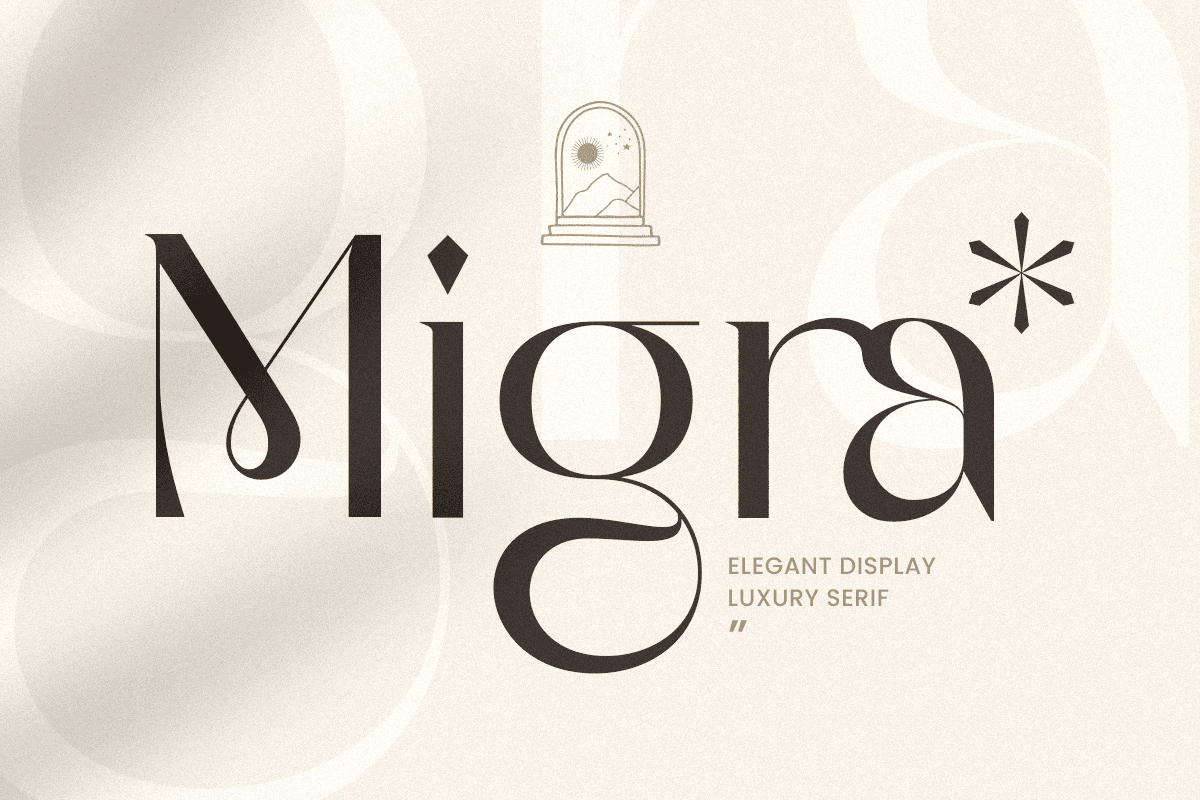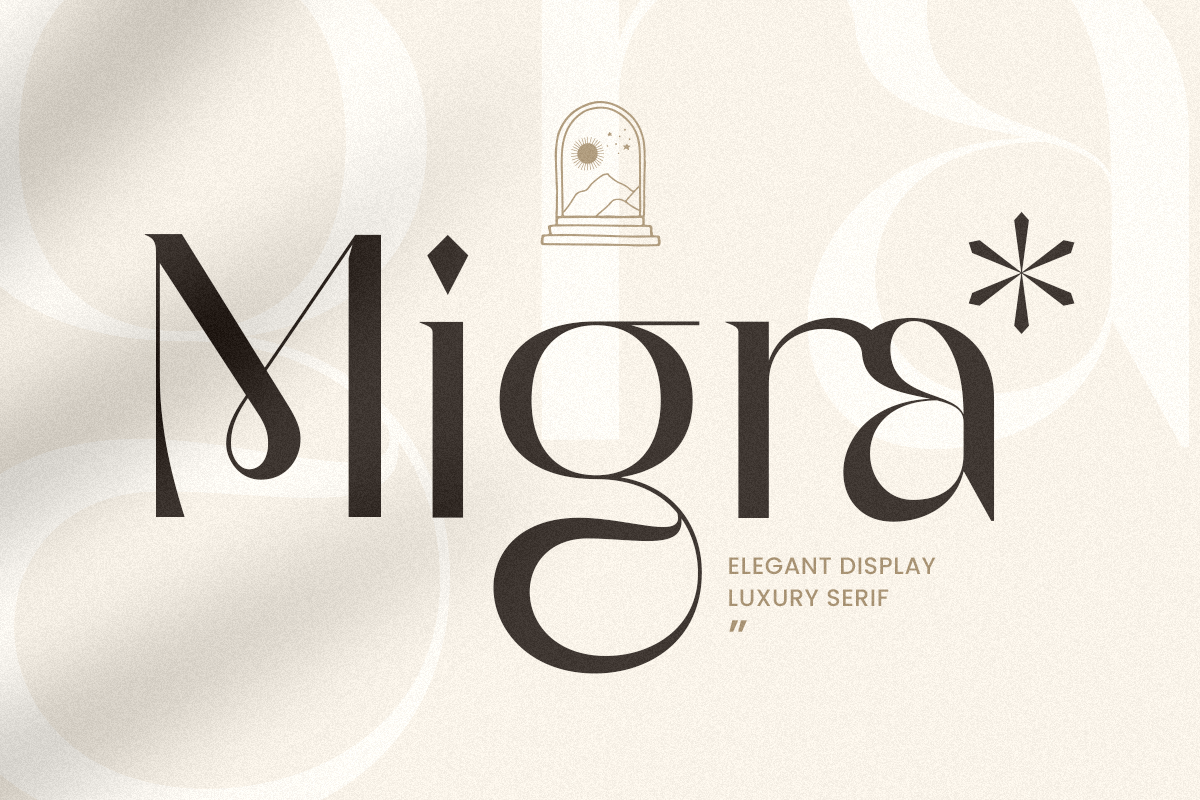
Migra
-Elegant Display High Contrast Font
Migra - Elegant Display High Contrast Font
Migra is an elegant display luxury sans serif font that brings a refined, high-end aesthetic to your design projects. Perfect for upscale branding, luxury logos, and sophisticated editorial designs, Migra combines bold, graceful letterforms with a timeless sans serif structure that exudes elegance.
Whether you're creating a logo for a luxury brand, a premium product line, or designing elegant invitations, Migra ensures your brand radiates sophistication. Its unique, high-end appeal makes it ideal for projects that demand attention to detail and a polished, professional look.
Migra – Elegant Display Luxury Sans Serif Features
• Elegant, classy sans serif letterforms with a luxury design
• Perfect for logos, branding, editorial design, and high-end projects
• Timeless, chic design with modern versatility
• OpenType features for advanced typographic styling
Create a sophisticated brand identity with Migra – the perfect font for elegant, luxury branding and design. 💎✨